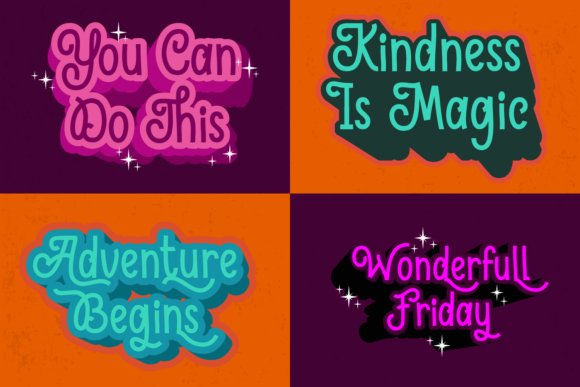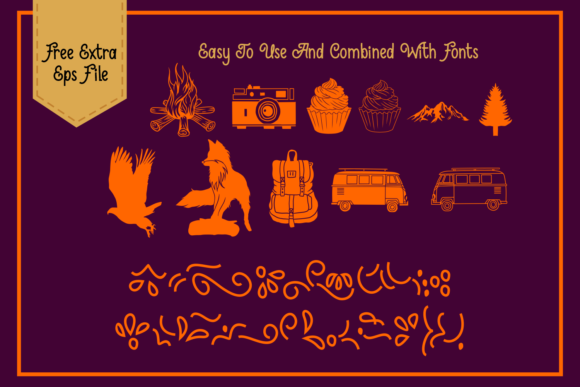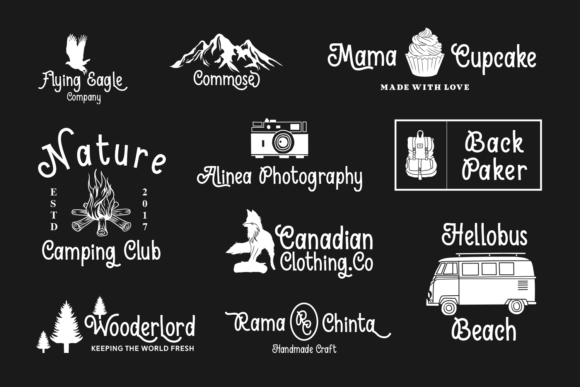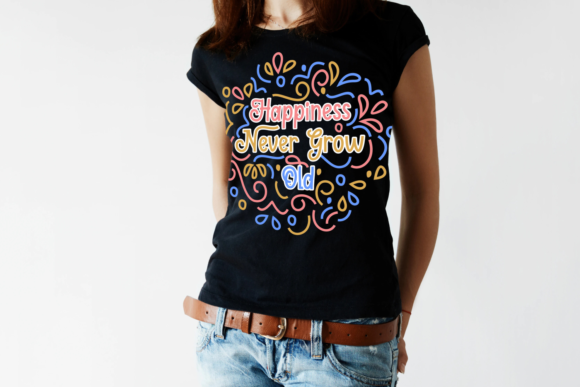
HomeScript FontsStereovilla Font Script Fonts Stereovilla Font FacebookXPinterestWhatsApp Stereovilla Font Poster 2 Stereovilla Font Poster 3 Stereovilla Font Poster 4 Stereovilla Font Poster 5 About Stereovilla Font Stereovilla is a vintage looking font. It’s a mix of a sans serif with stunning beautiful swashes. DOWNLOAD NOW People also explored School Spirit Olivia Bailey Font Badger Font Coffee Lover Font Keyla Daily Font Van Mockup EP Lazy Font Hey Ken Font Brooklyn Park Font 354 0 TagsStereovilla Font Previous articleAlannn FontNext articleRoxy Foxy Font LEAVE A REPLY Cancel reply Comment: Please enter your comment! Name:* Please enter your name here Email:* You have entered an incorrect email address! Please enter your email address here Website: Save my name, email, and website in this browser for the next time I comment. Personal Use Free Grillin Personal Use Free Read more about this font Veronica Personal Use Free Read more about this font Coffete Personal Use Free Read more about this font Archipellago Personal Use Free Read more about this font BLOG Transform Your Website: Elevate Your Typography with 7 Best Web Font Generators Are you ready to transform your website's typography from ordinary to extraordinary? Great! Today, we're diving into the world of web font generators, which... Where to Buy American Fonts Online in 2024 5 Fonts That Will Dominate Design Trends in 2026 Best Fonts for YouTube Videos: Make Your Thumbnails Stand Out